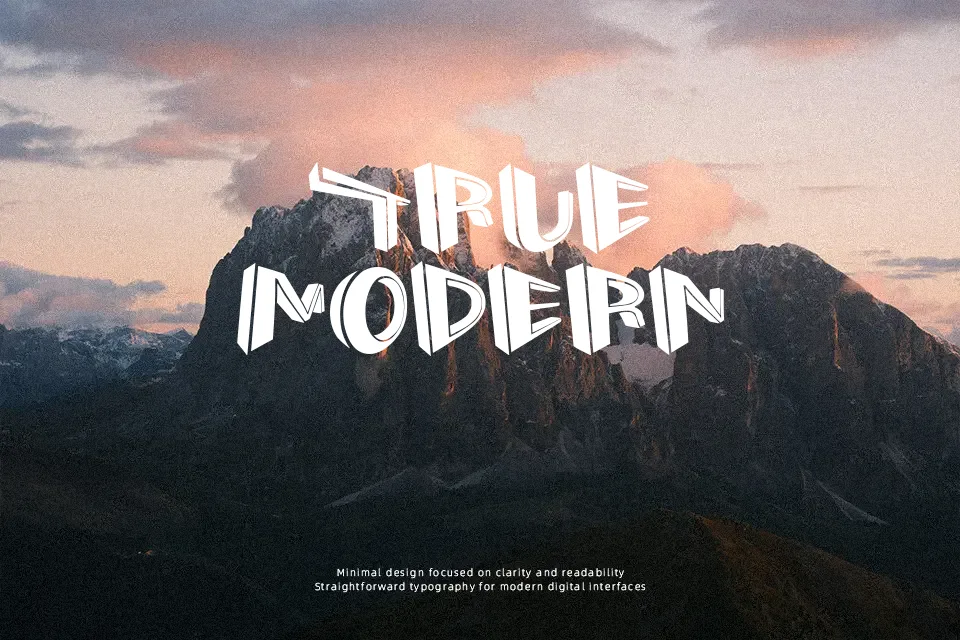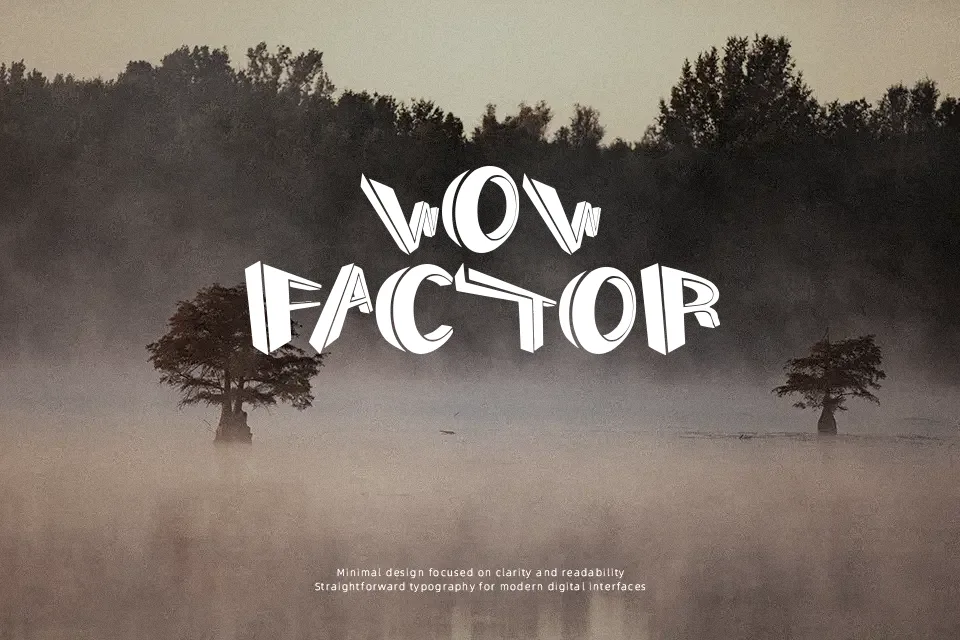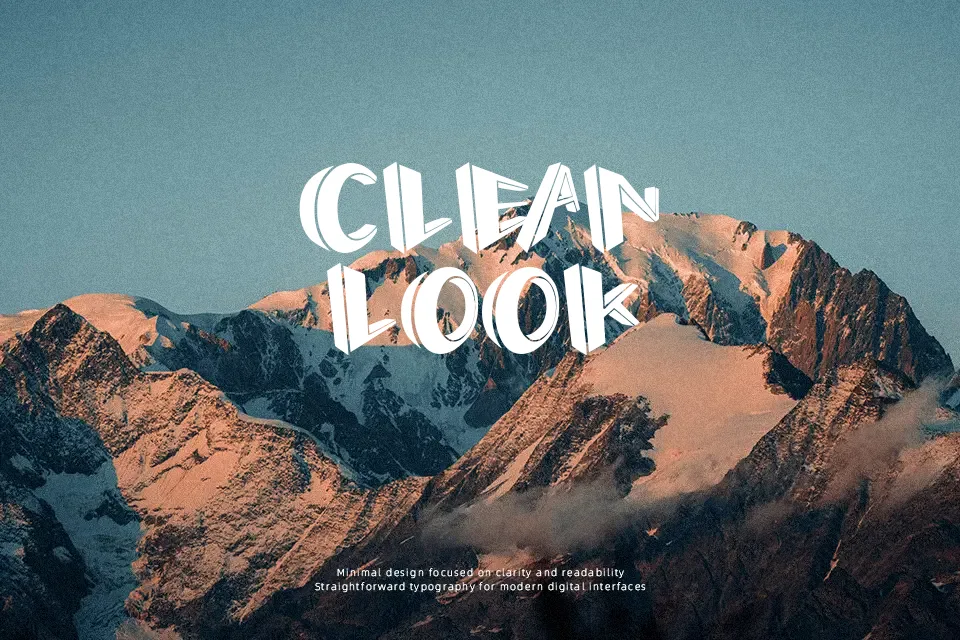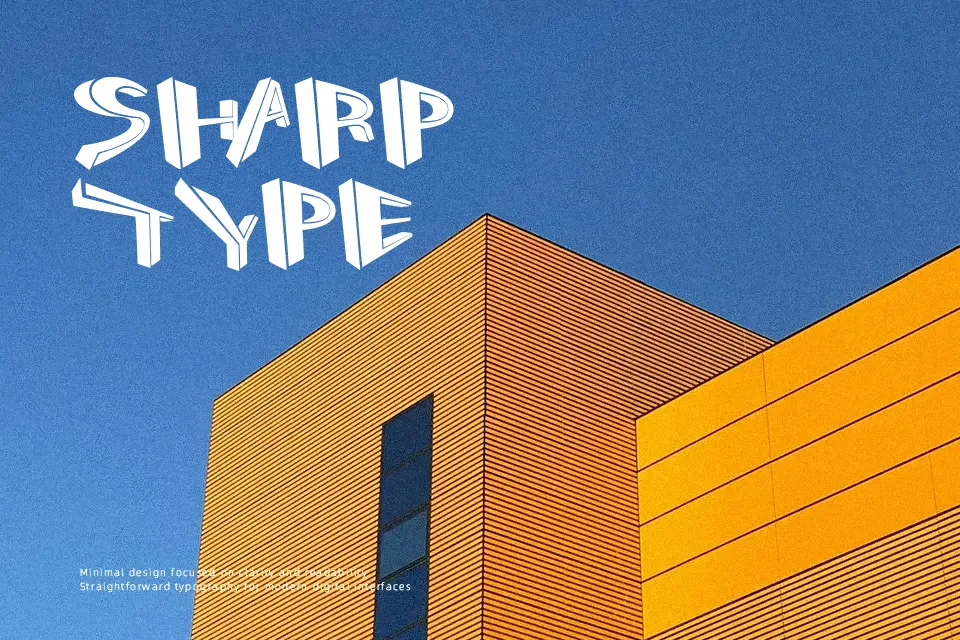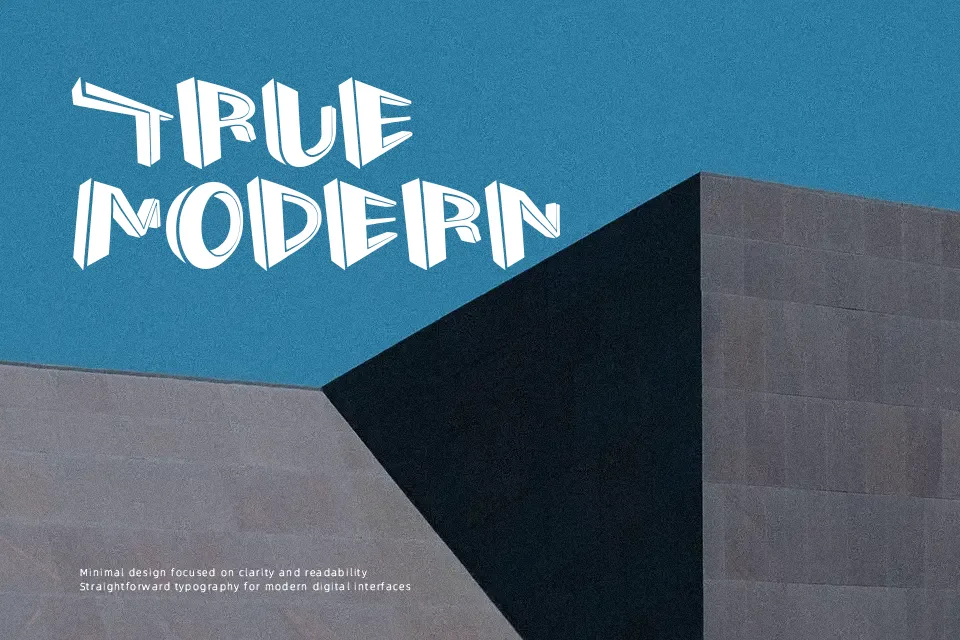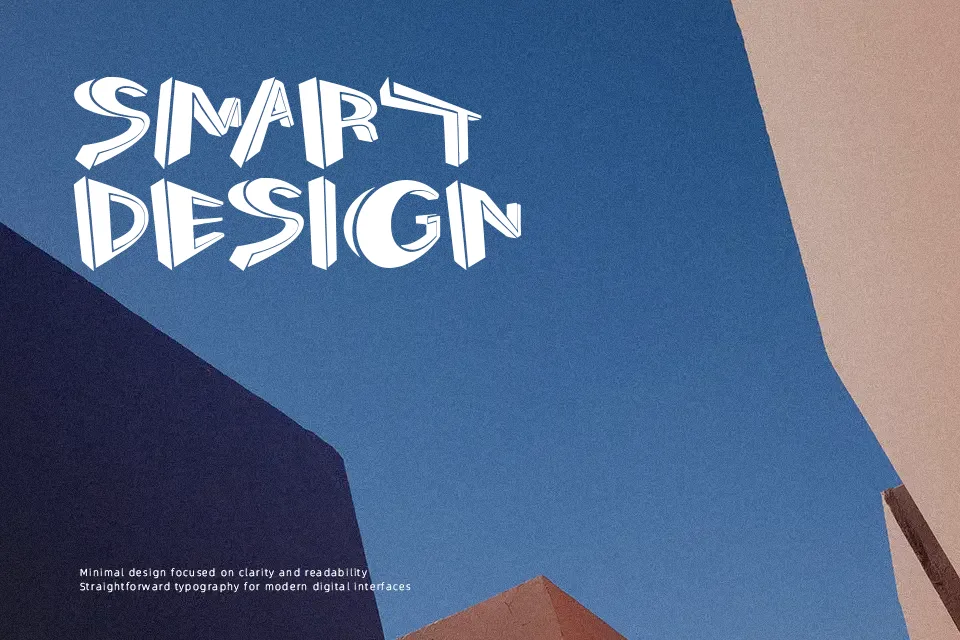
Perspect Font
Perspect uses heavy, block-like letterforms with a pronounced angled 3D treatment that gives short text a built-up, dimensional appearance. The strokes are thick and visually uniform, while the geometric proportions create a firm rhythm across uppercase letters, numerals, and punctuation. Spacing appears designed for display settings, helping the layered forms stay distinct when used large. It works most convincingly in short headlines where the depth effect has room to read. At smaller sizes, the added dimensional detail can crowd the shapes and reduce clarity, making the typeface unsuitable for extended copy.
Best For: concert poster headlines,event signage,arcade-style graphics,album cover titles
Perfect for 3d, advertising, and headline, with a bold and decorative style.